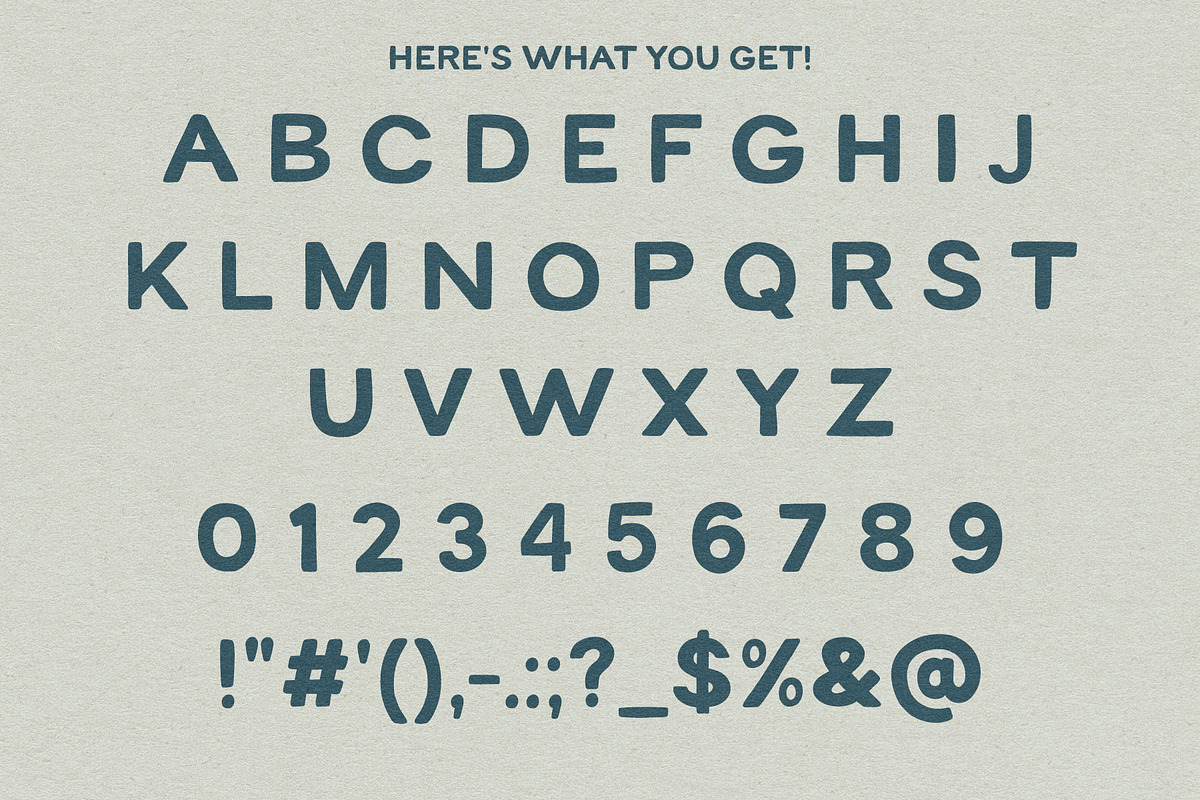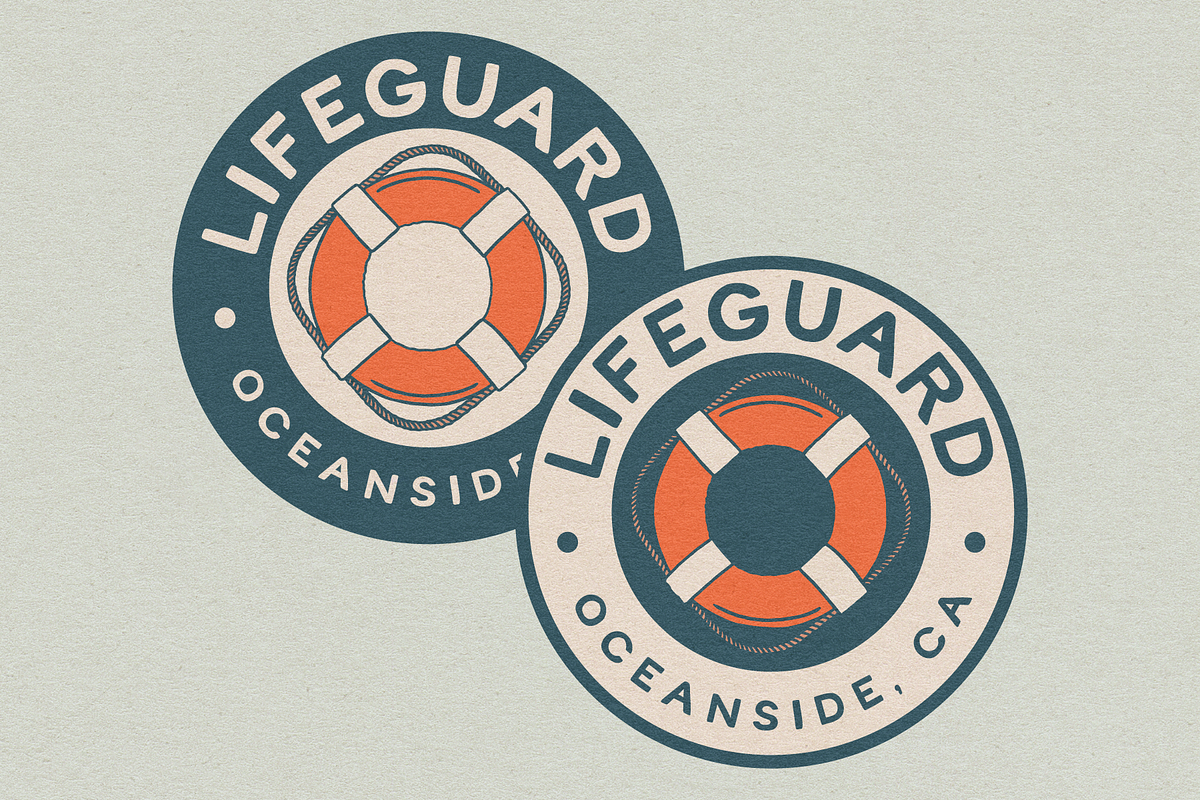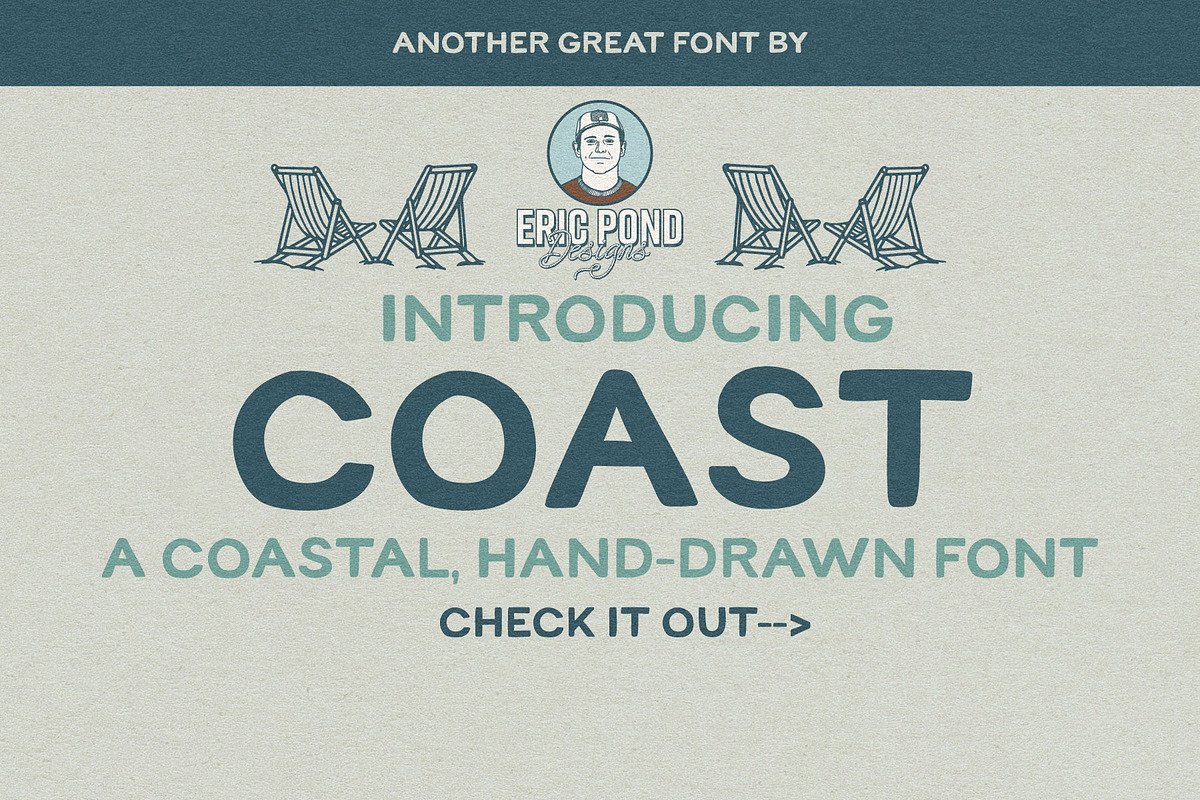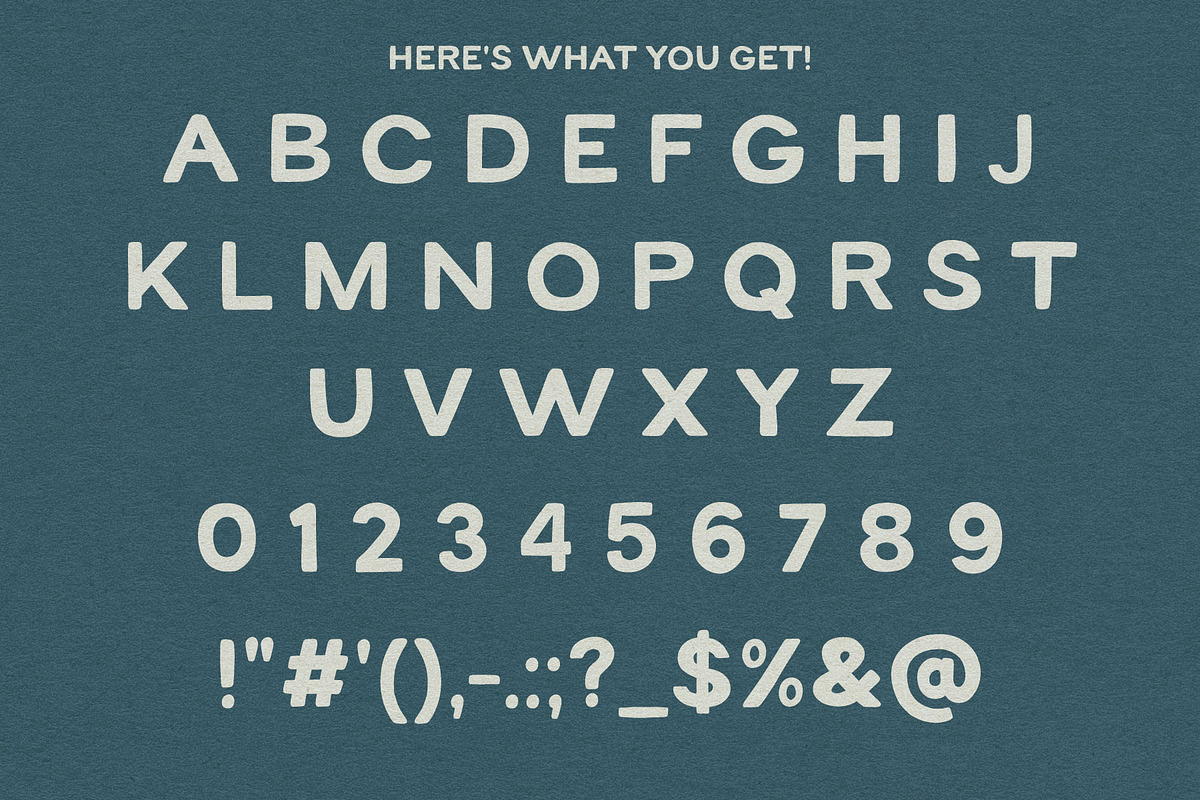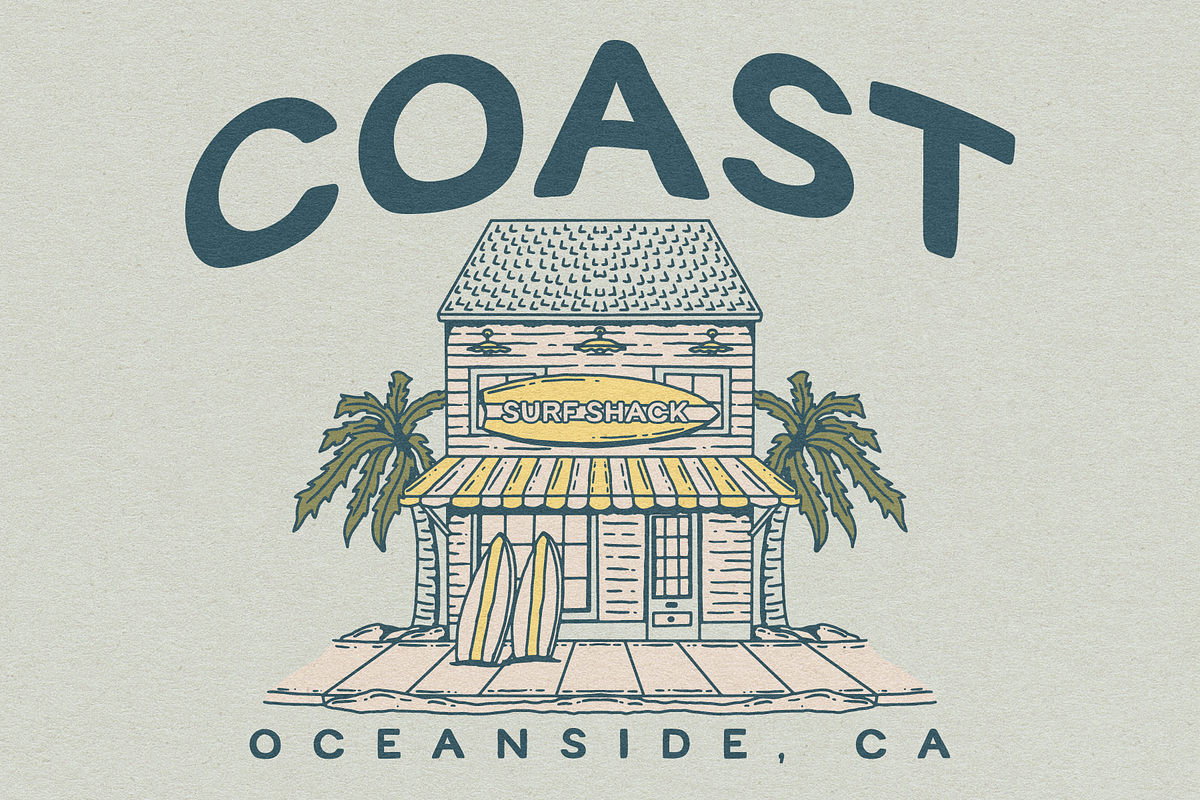
Coast - A Coastal, Hand-drawn Font
Introducing Coast, a Coastal Hand-drawn font by Eric Pond Designs! This font features uppercase, numbers and some punctuation.